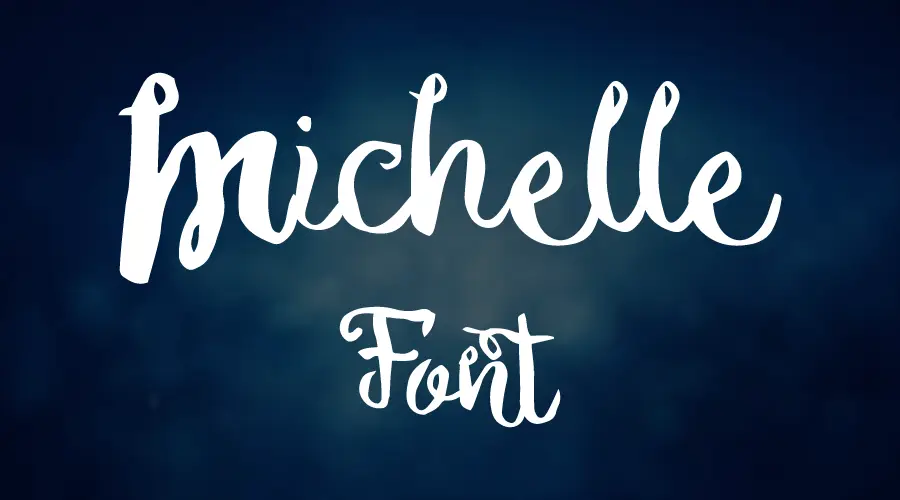
Michelle Font Free
Please welcome a new font to our font family called Michelle, a free handcrafted and handwritten font published in 2015. It was designed and published by a creative artist called Noe Araujo. He poured his love and attention to make this stunning handwritten typeface. It’s inspired by Noe’s talented touch, which lends itself to a modern, free-flowing style. He created this fantastic font specifically for those who are looking for a unique but stunning and beautiful handwritten font if you’re seeking a natural script font for your logotype, wedding card, or website headlines.
Usage Ideas
The typeface is ideal for use in wallpaper with light backgrounds. This typeface can also be used on business cards for any type of clothing brand. If you know how to use this typeface properly, you can create great logotypes. It may also utilize in website headlines as well. Whether you’re a professional designer or just starting out, Michelle is a great font to consider for your next project. So download it now and give it a try!
Michelle Font Free View
Michelle Font Character
Michelle Font Symbols